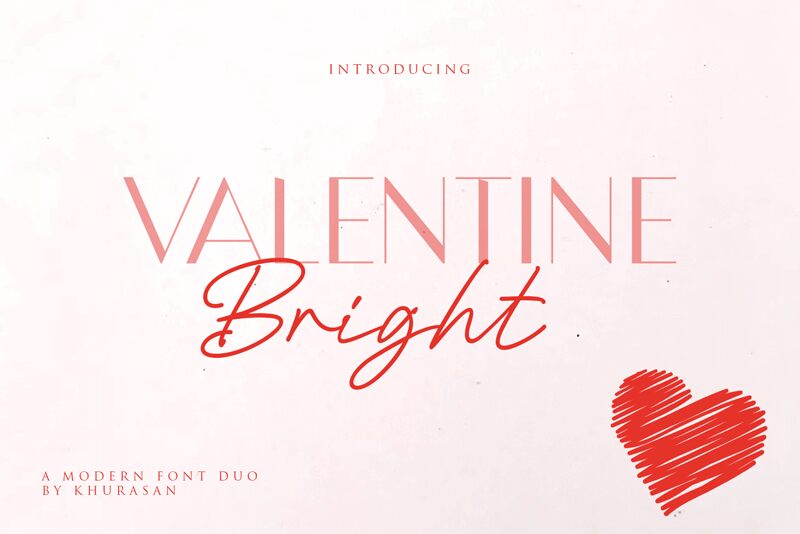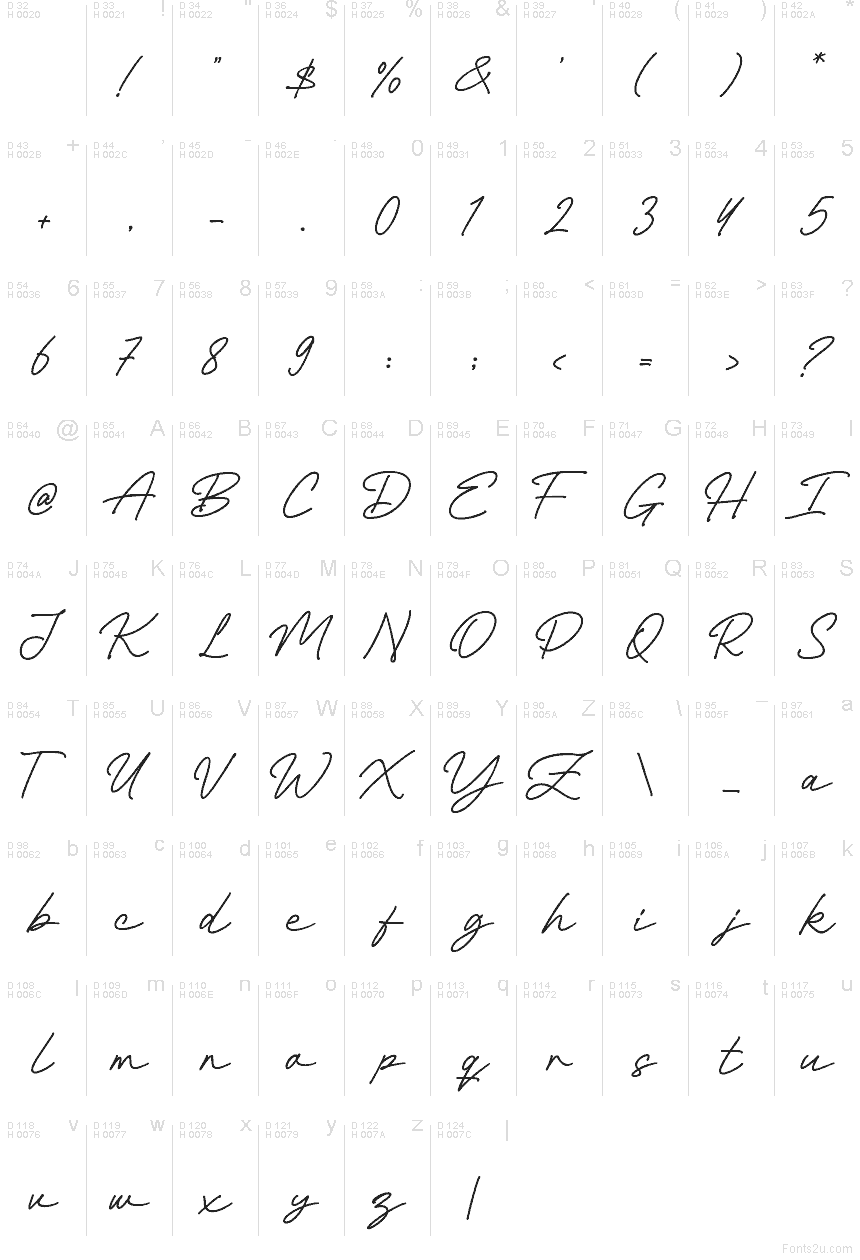
Valentine Bright Script
Valentine Bright Script font by Khurasan is a free handwritten script typeface that captures the ease of a quick, confident note on smooth paper. Its slender, slightly slanted strokes feel like ink from a favorite pen-casual yet tidy, with enough loops and curves to feel romantic without turning sugary. Letters link with a gentle rhythm, so words flow in a natural, effortless line that still reads clearly at medium sizes.
Using Valentine Bright Script, you can bring a warm, personal touch to wedding invitations, love notes, greeting cards, social media quotes, product packaging, and handwritten-style logos. This free font shines on soft color palettes and textured backgrounds, where its fine lines feel especially delicate. For balance, pair Valentine Bright Script with a clean sans serif for body text, and let the script handle names, headings, or short phrases at larger sizes.